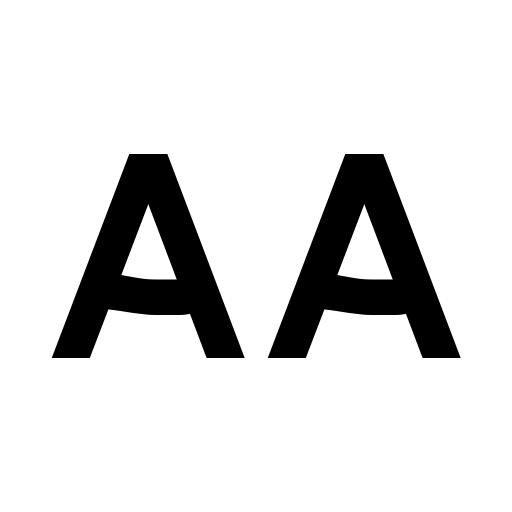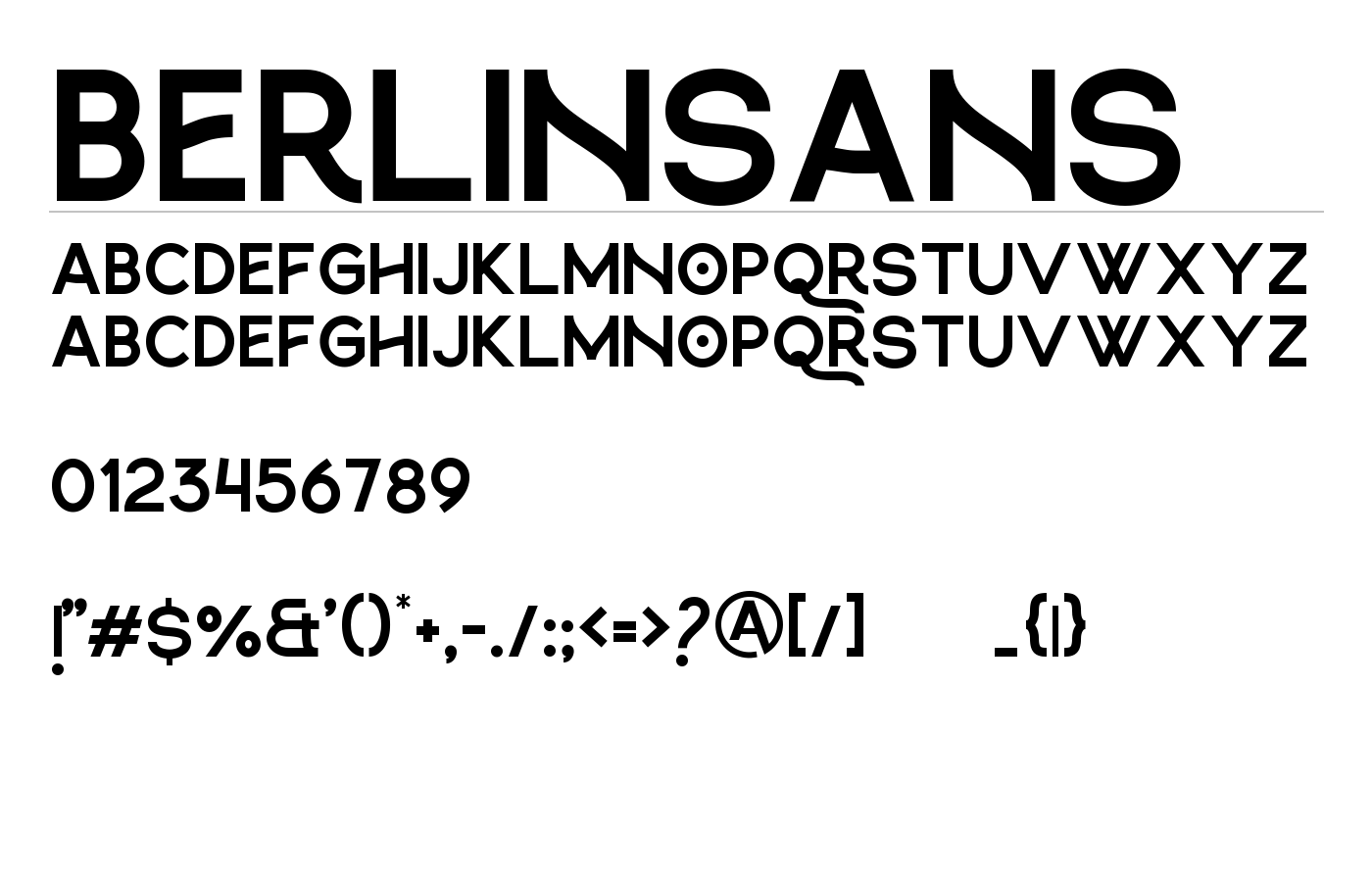
BerlinSans is a bold, geometric sans serif font with a modern, industrial feel. Its clean lines and balanced letterforms combine with unique stylized details like the curved leg of the Q and angular elements, giving it a distinctive yet functional look. This font works well for striking headlines, branding, and posters where a contemporary and authoritative impression is desired.
berlinsans Font
About berlinsans Font